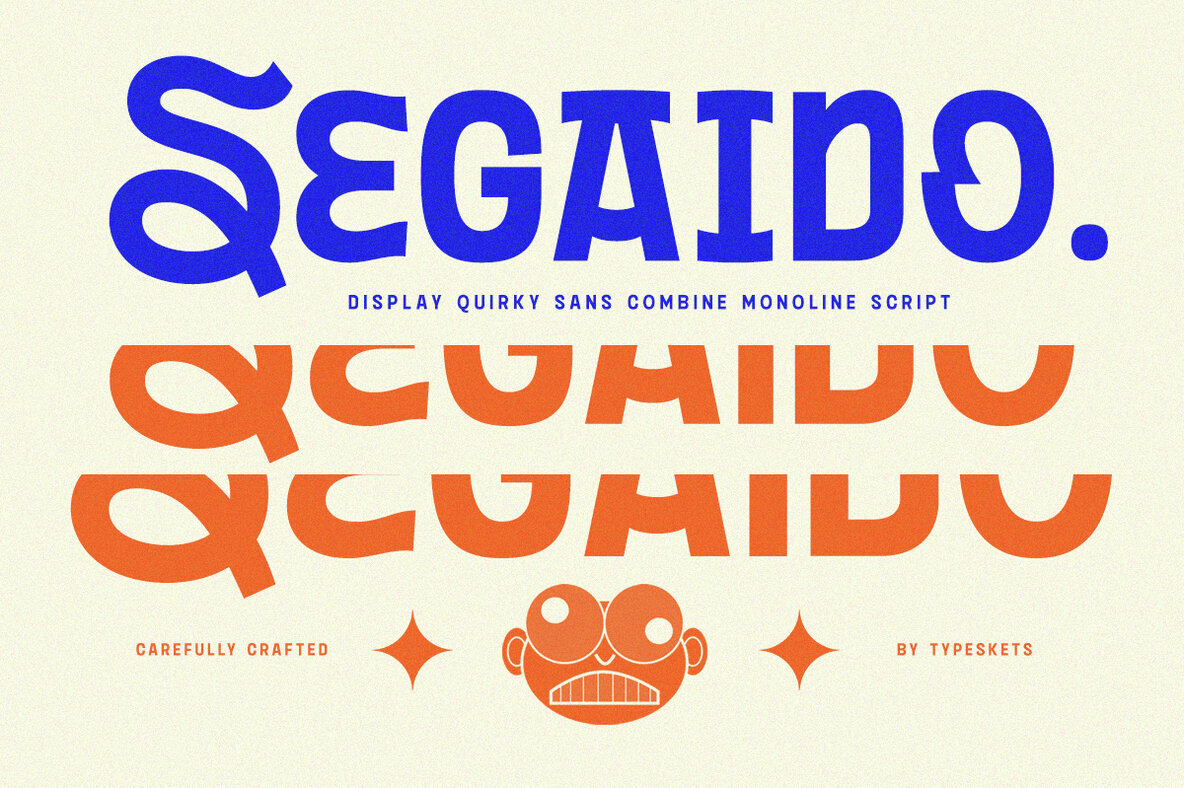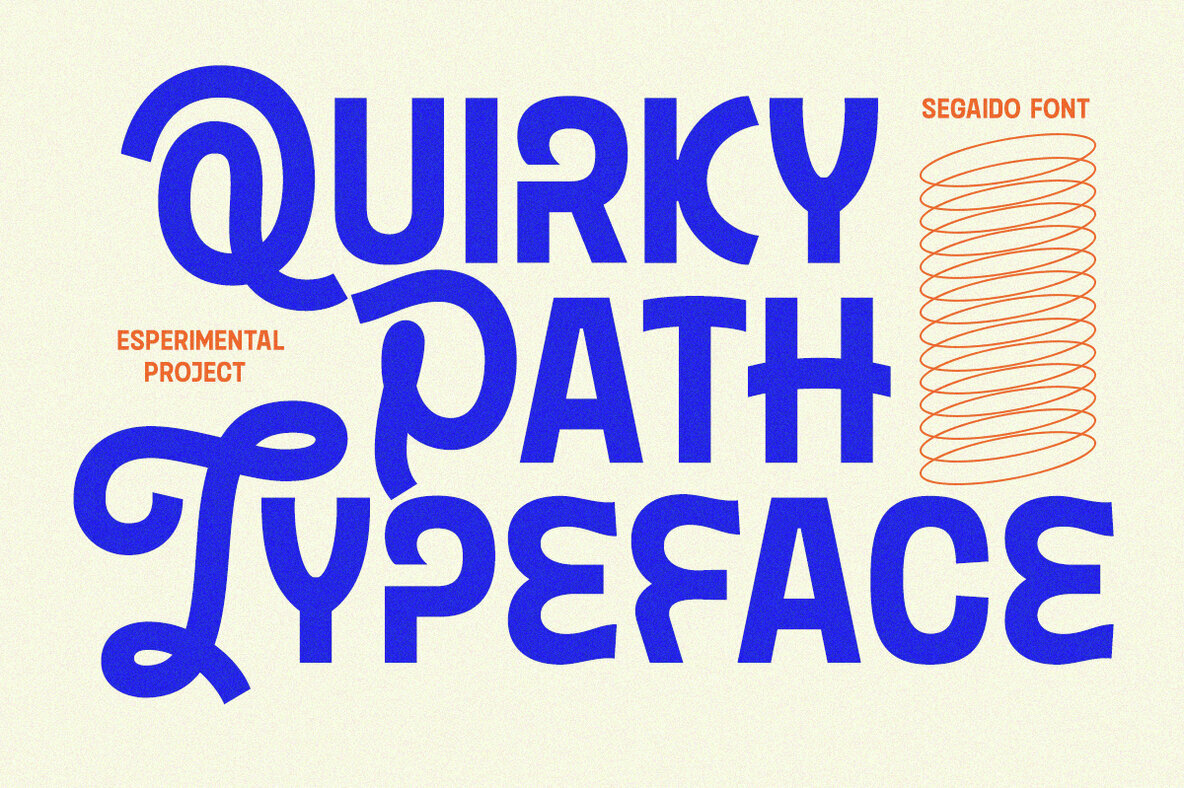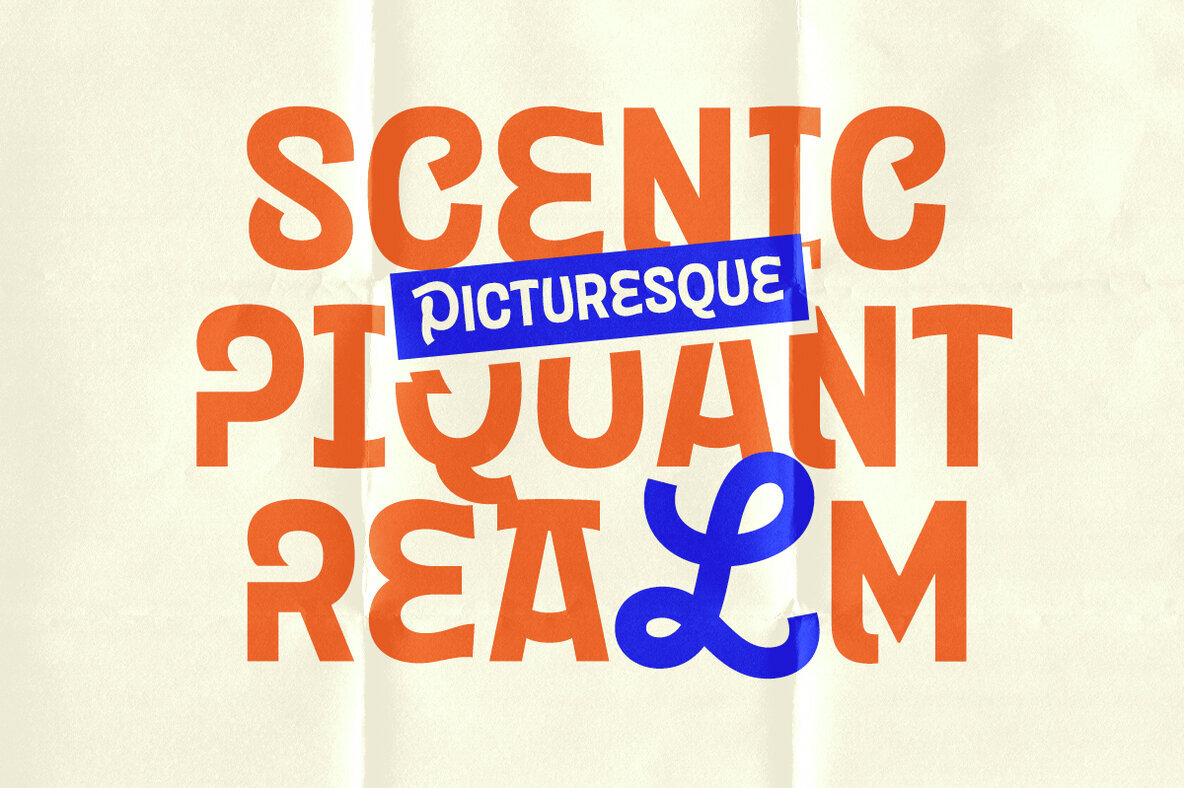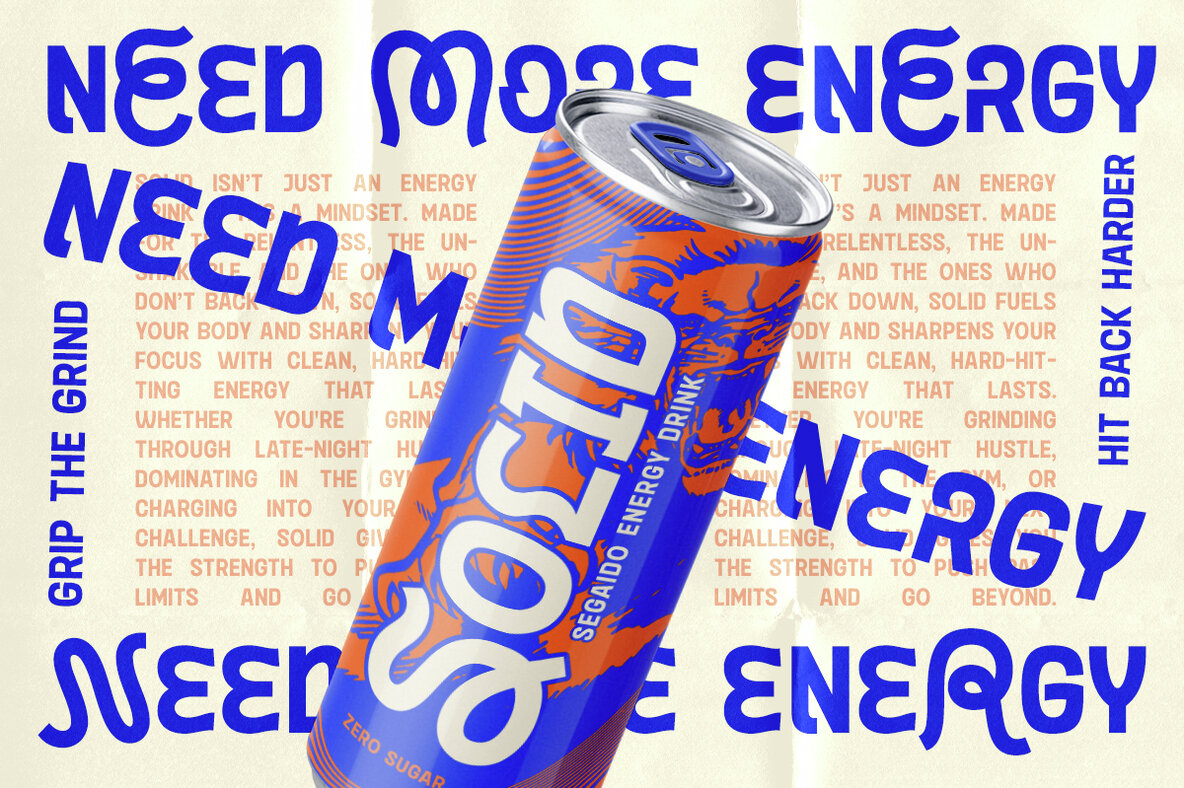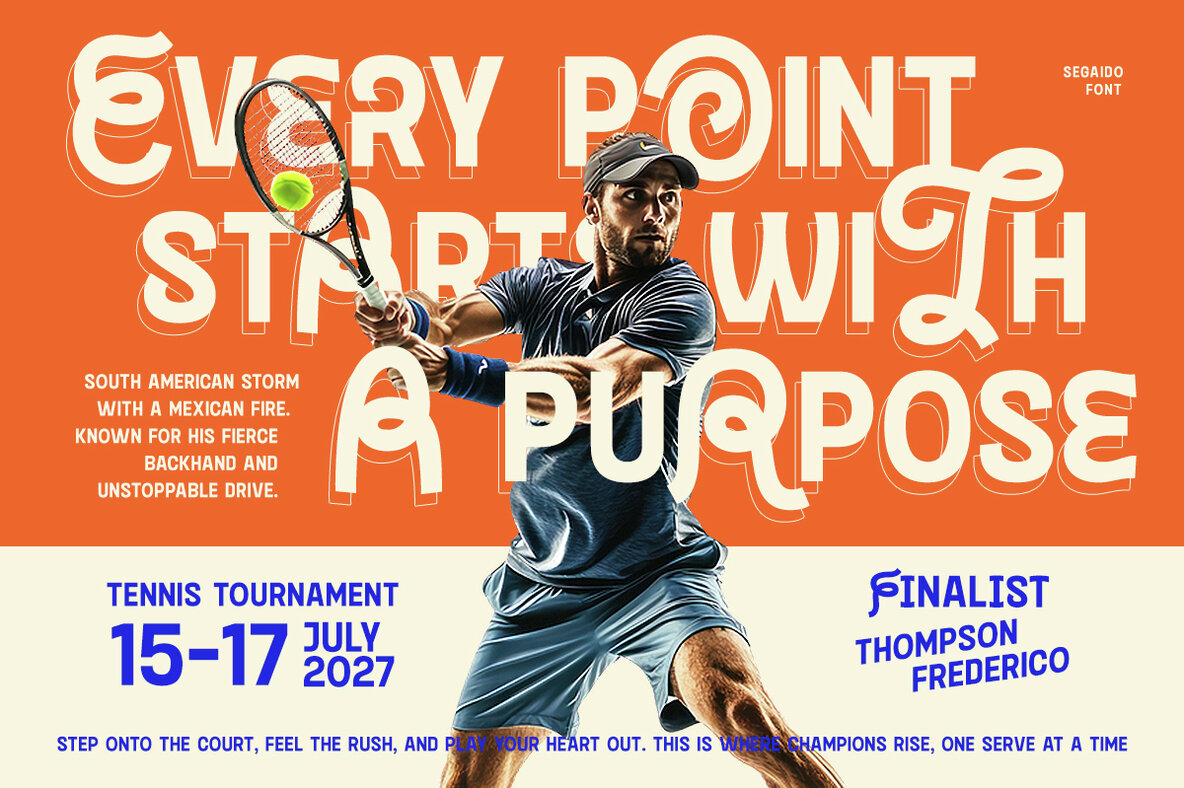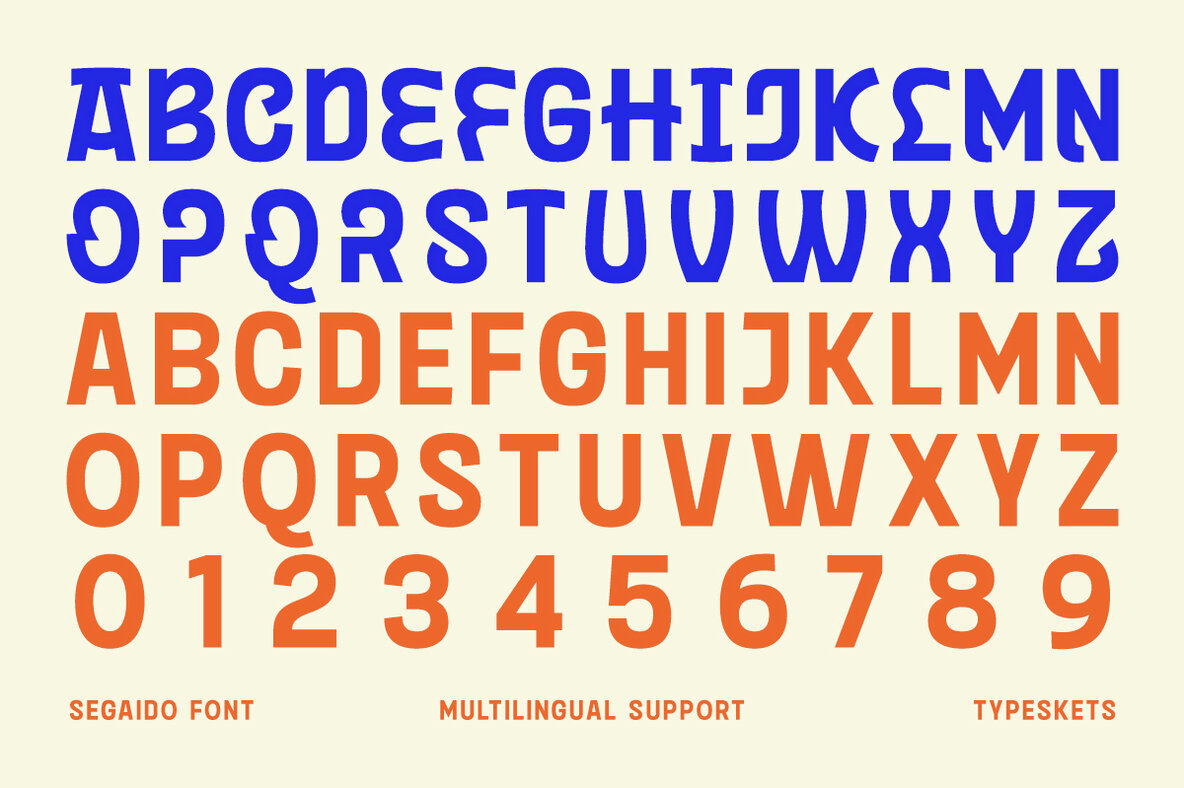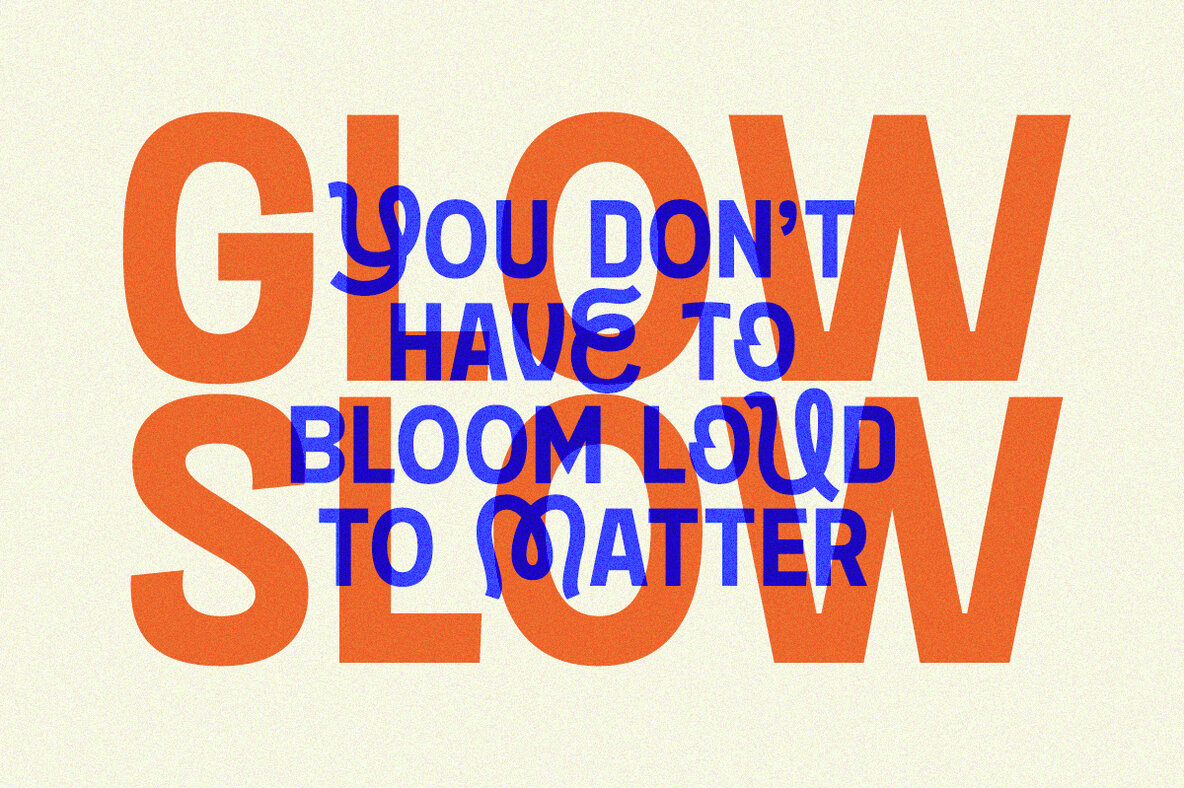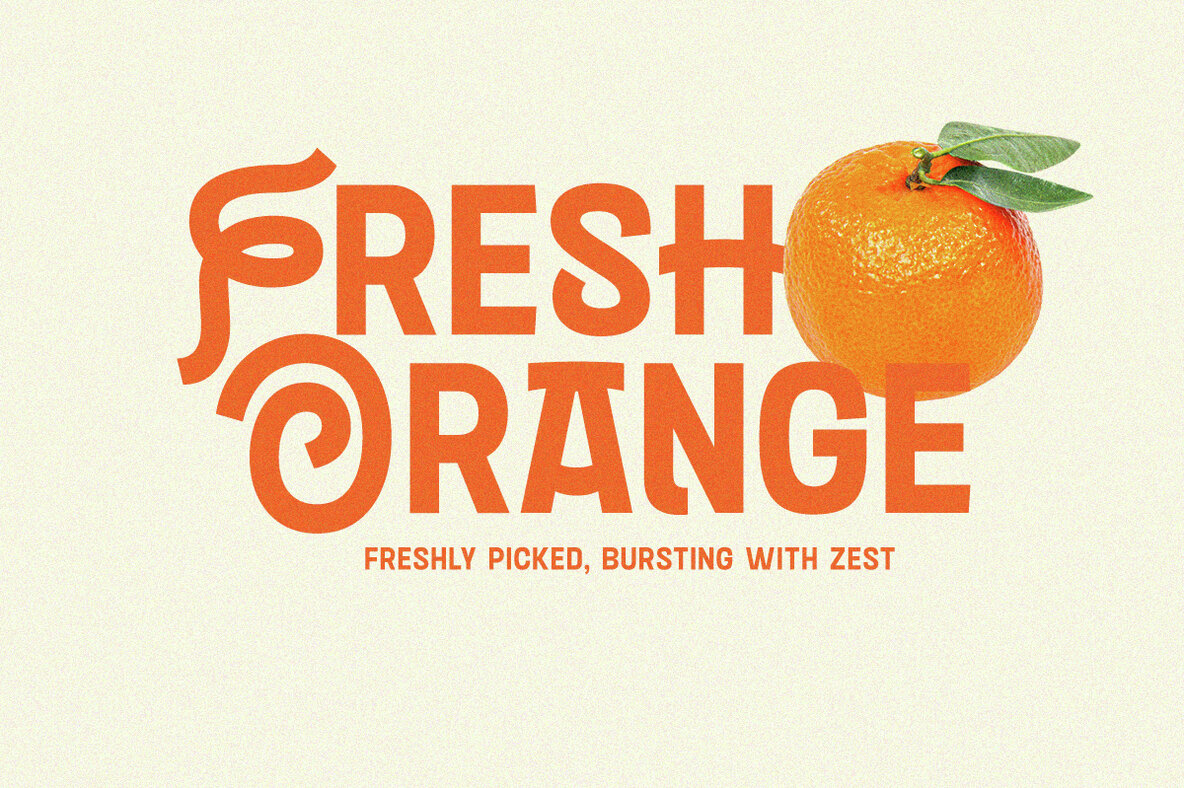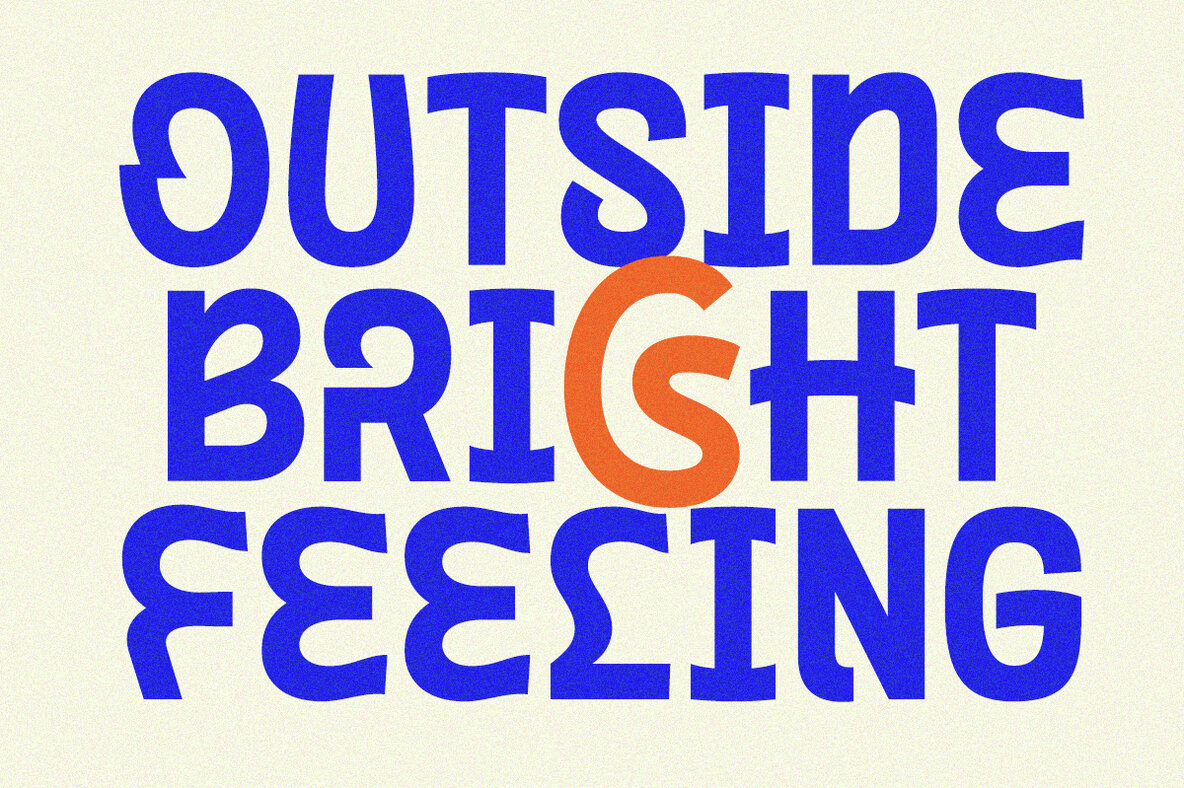
Segaido Font
Segaido Regular
Bold and daring, Segaido is a sans-serif display font that embraces playful creativity. Drawing inspiration from Japanese pop culture and 80s visual energy, it combines strong geometric shapes with unexpected curves for a retro-futuristic feel. Each letter is imbued with distinct personality, offering unique alternates that inspire fresh, experimental typography. Ideal for projects such as posters, retro branding, album covers, or creative editorials, Segaido infuses a sense of fun, energy, and boldness. Perfect for creatives eager to break the mold, this font elevates designs beyond the ordinary. For best results, mix and match the alternates to create a dynamic visual rhythm. Combine with vibrant colors and bold layouts to achieve maximum impact.Segaido: A Quirky Sans-Serif for Playful Design